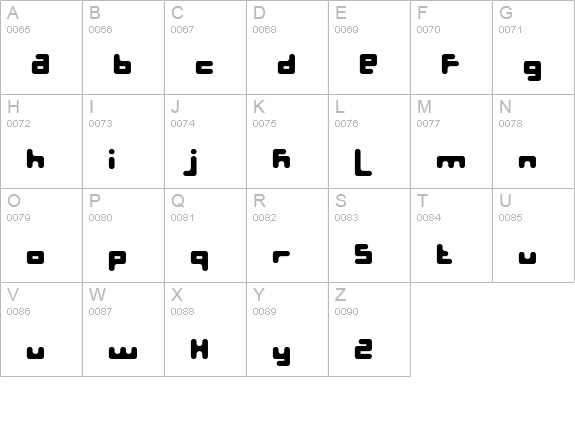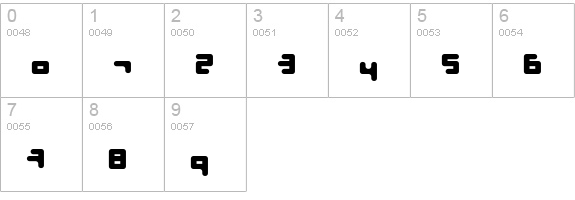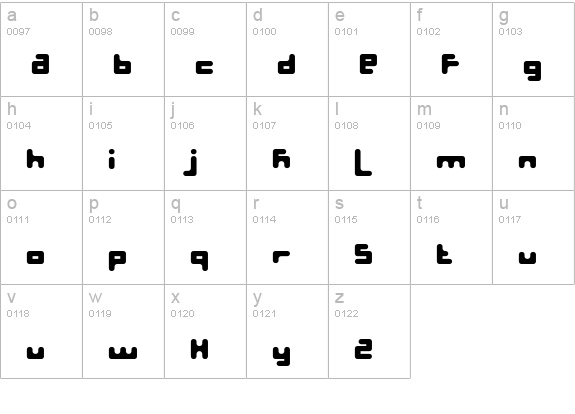
Fluffster Font Details
Introducing Fluffster font, a whimsical and playful typeface that brings a touch of charm to any design project. With its soft curves and rounded edges, Fluffster exudes a sense of warmth and friendliness. This fun and quirky font is perfect for adding a lighthearted feel to invitations, greeting cards, posters, and more. The best part? Fluffster font is completely free to download at FontsMarket.com. So go ahead and unleash your creativity with this delightful typeface that is sure to bring a smile to anyone's face.